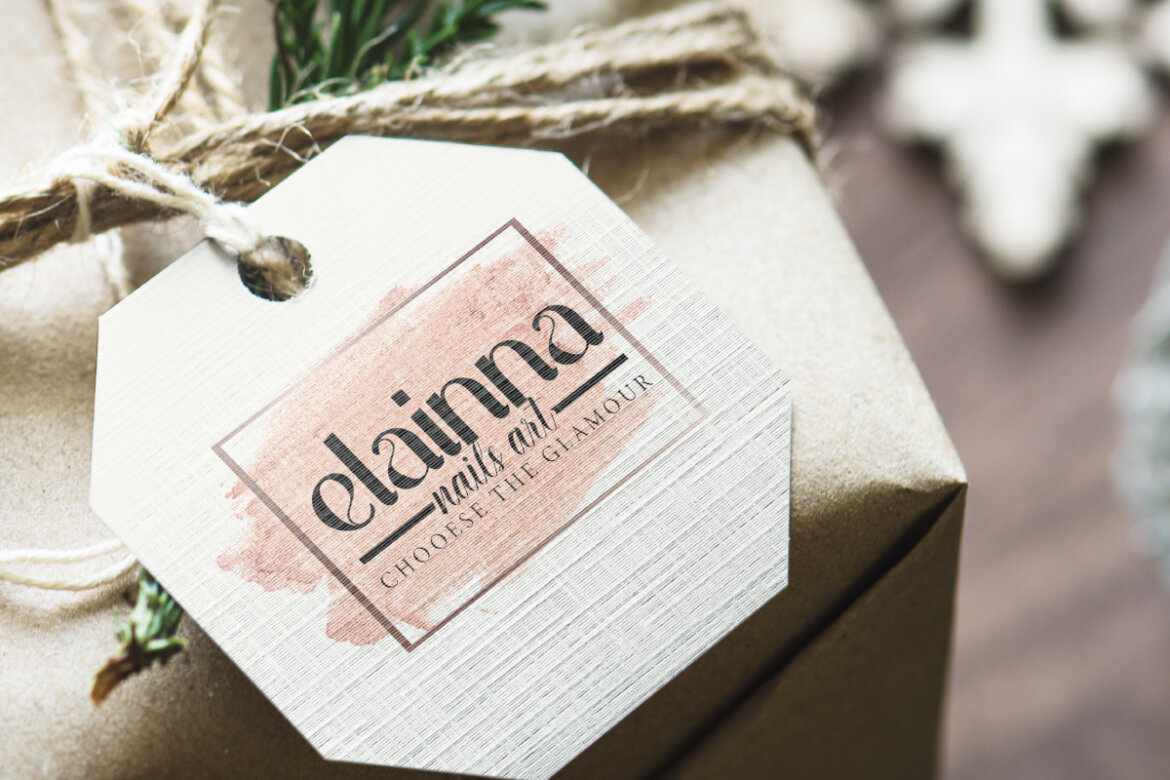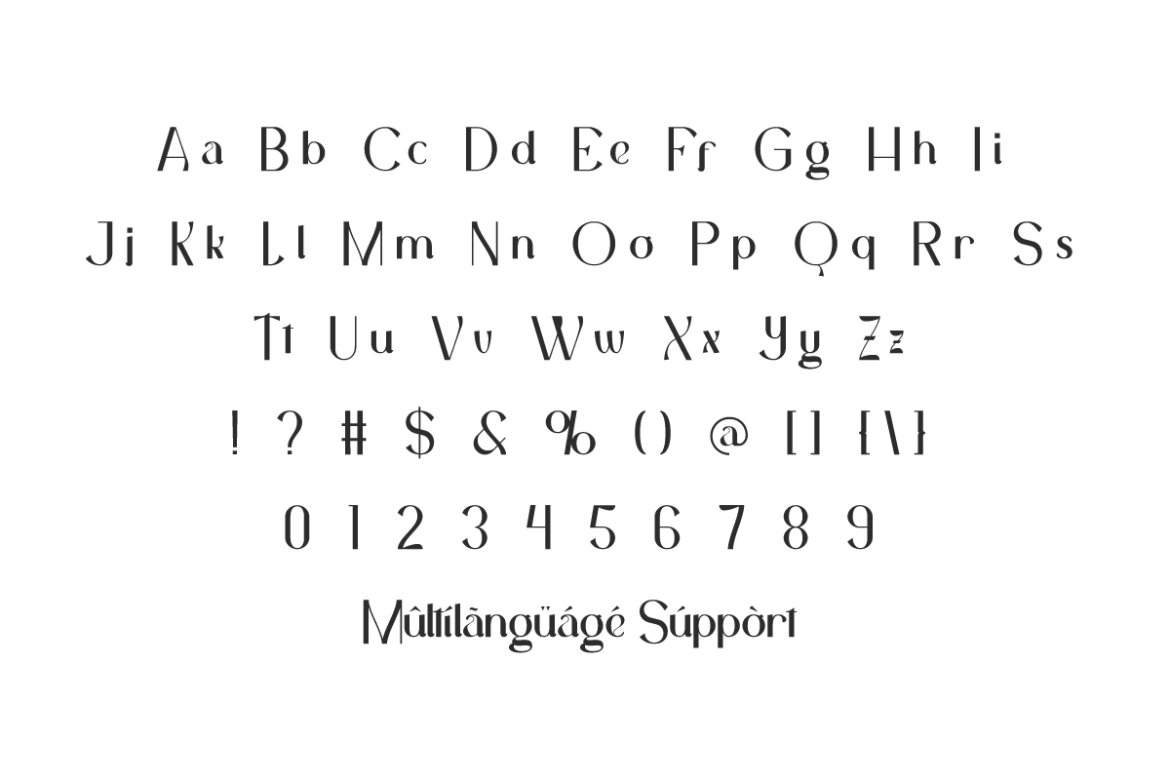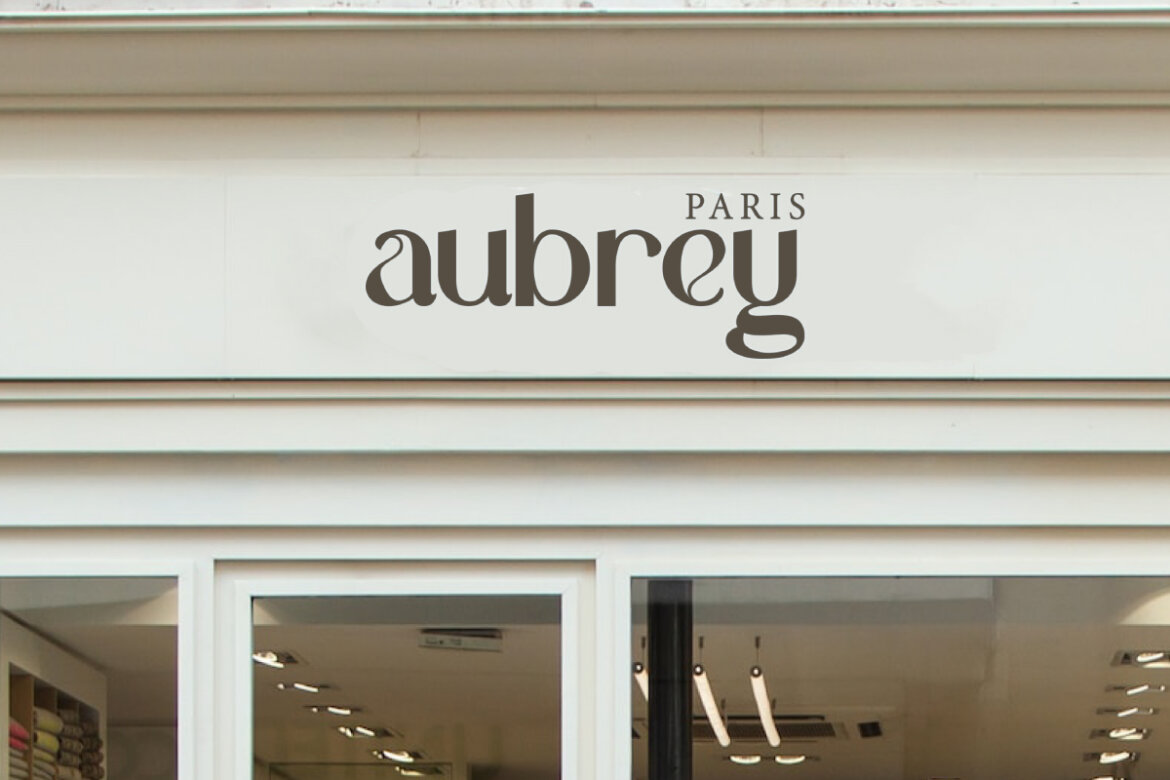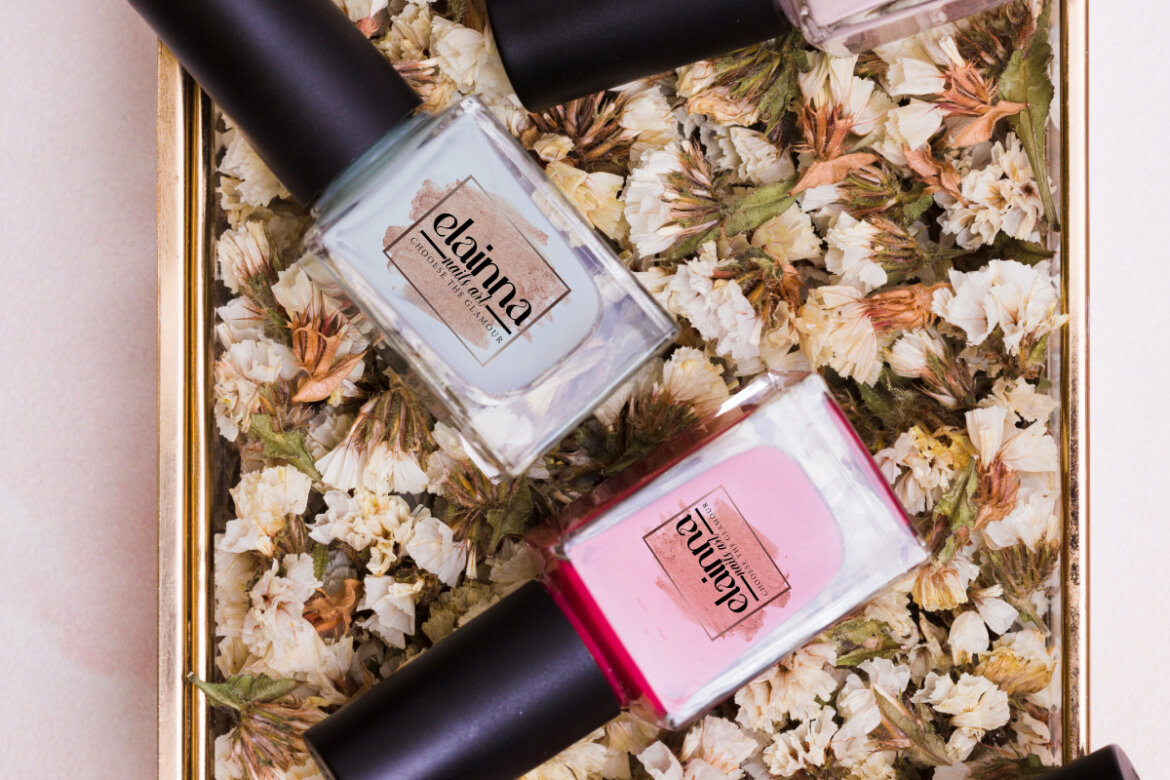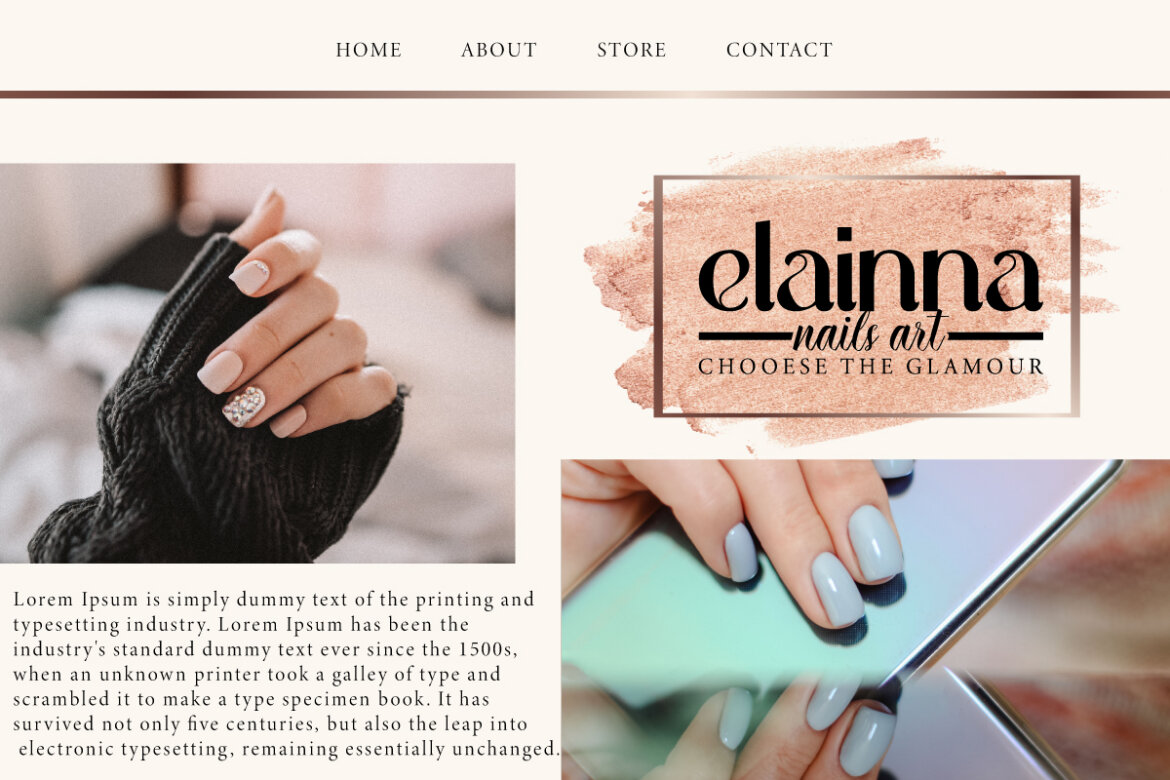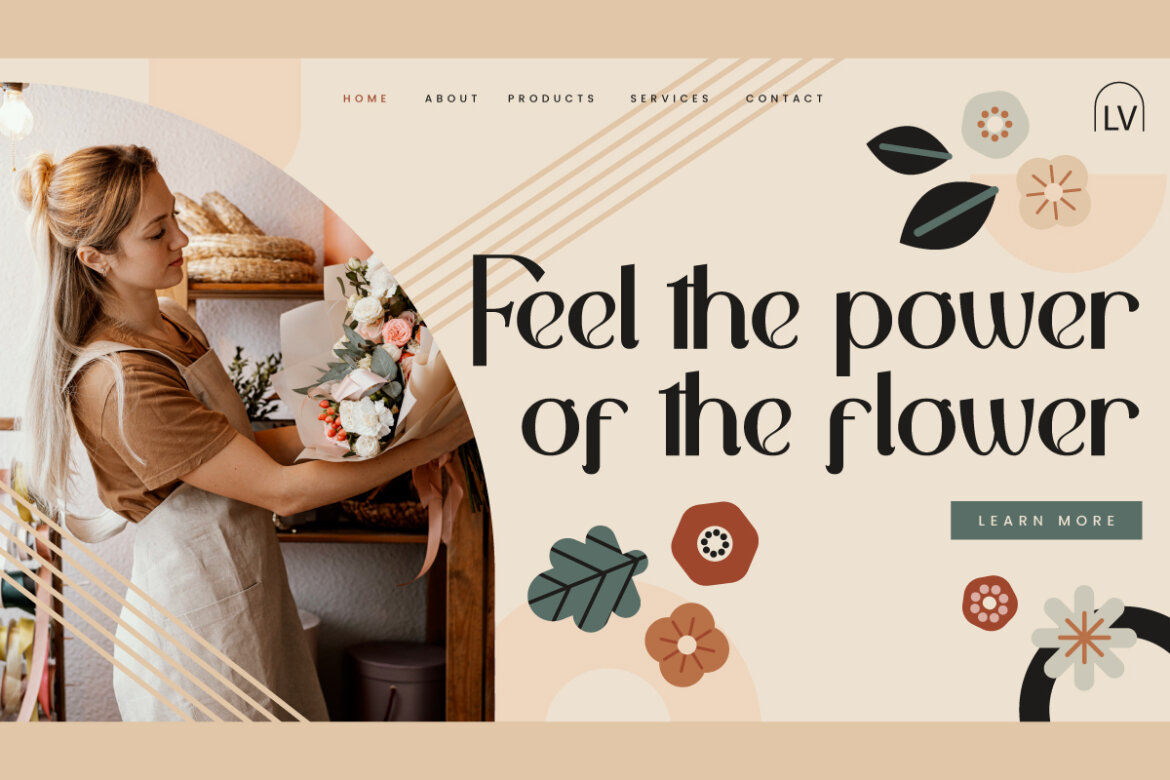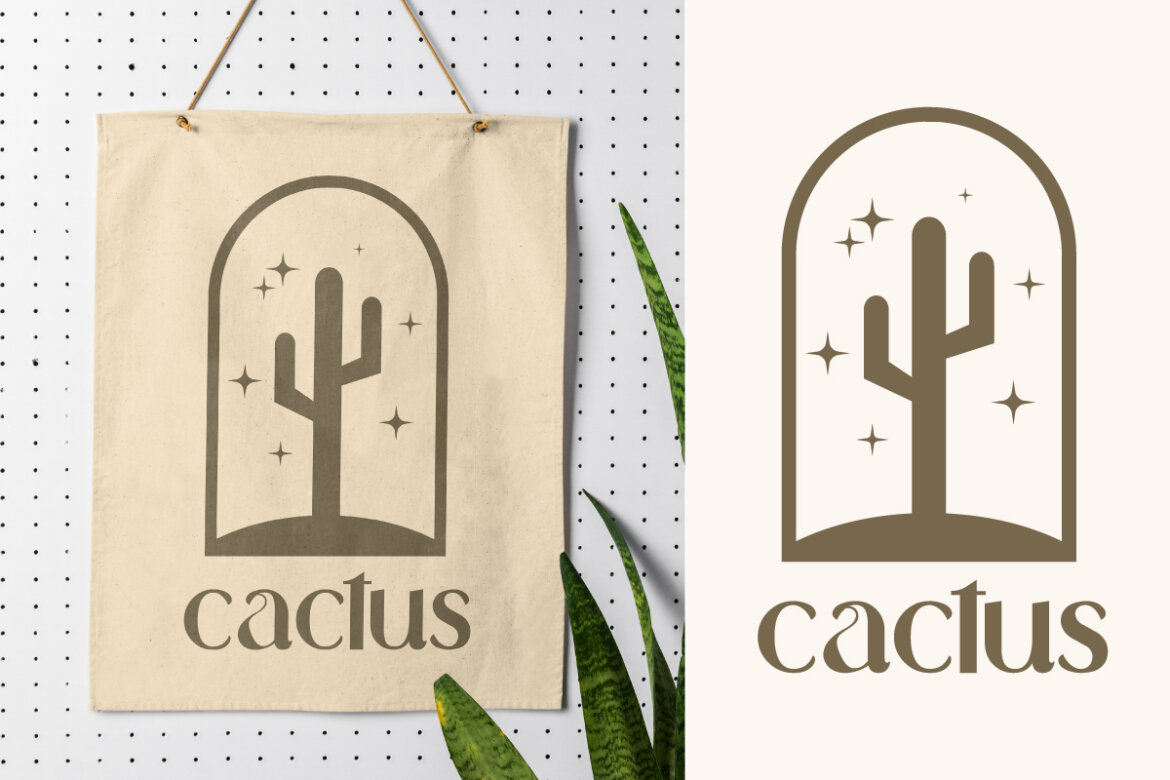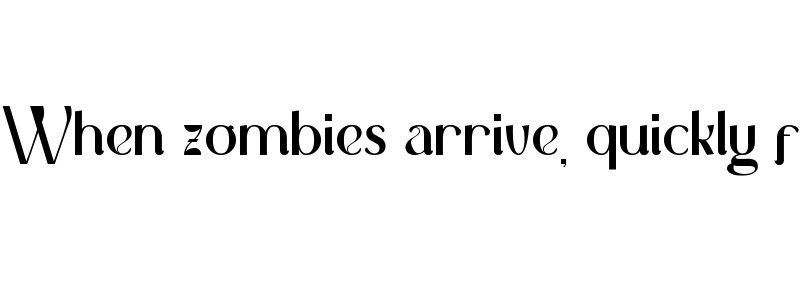
Gotama FREE Font
Gotama
Gotama Font is a luxurious display font with elegant letters designed with high-class branding in mind. This font is useful for highlighting your designs, such as blogs, logos, packaging, print custom, product labels, signage, social media posts, sticker, titles, watermarks, websites, and so on. Get creative with this to come up with an experimental design!
Gotama Font includes a complete set of Basic Uppercase and Lowercase Characters, Numbers, Punctuation and Symbols. It’s a modern font that has less complicated and charming characters, inspired by the basic sans serif. This will create a unique design that will catch the attention of the target audience. The font is suitable for businesses such as, accessories, clothing brand, cosmetic, craft, fashion, florist, furniture, makeup, online shops, salon, and many others.